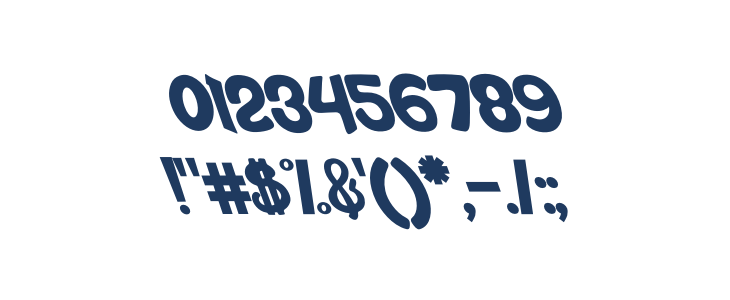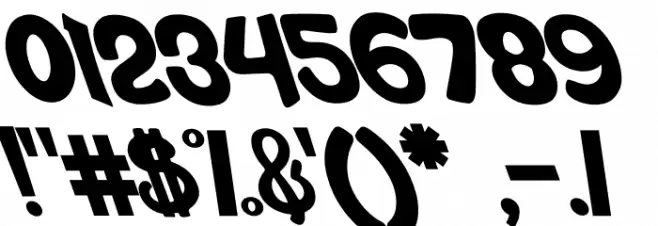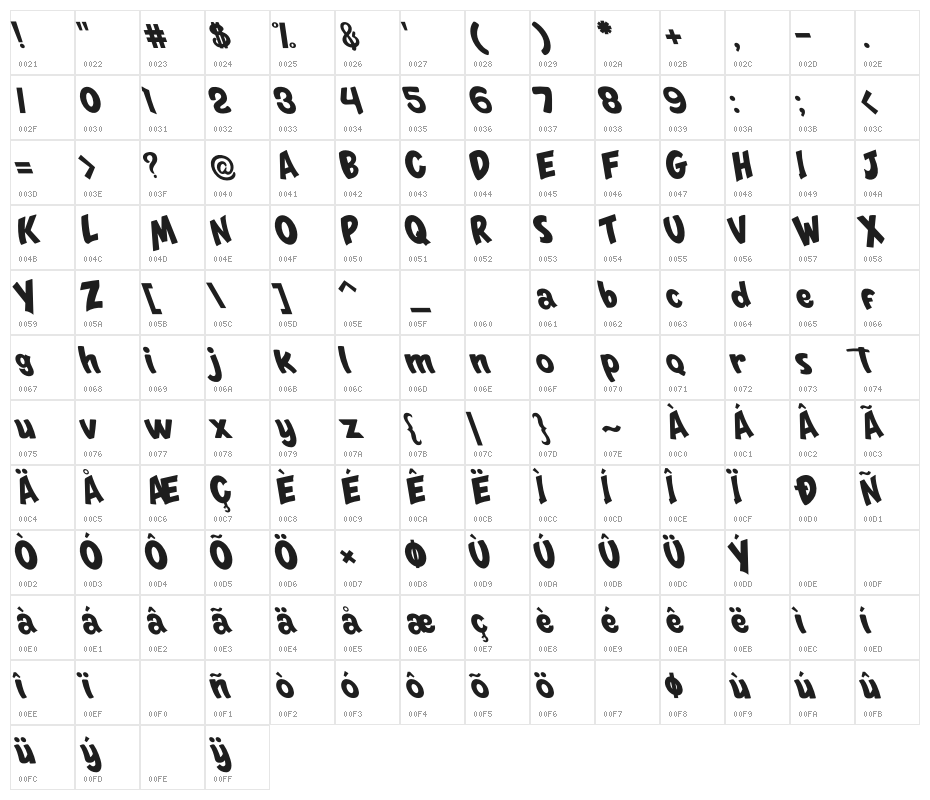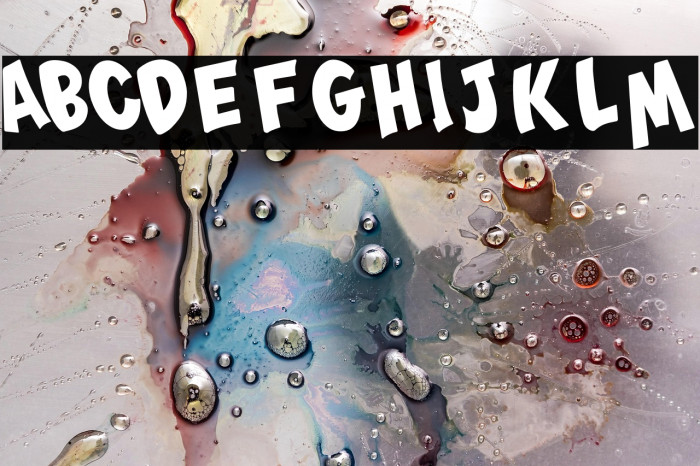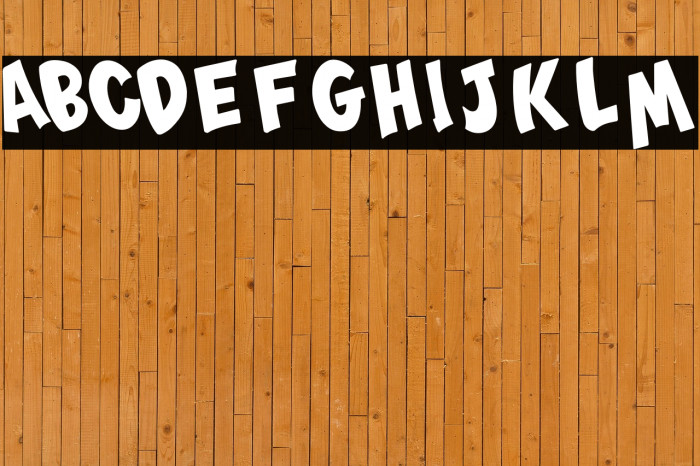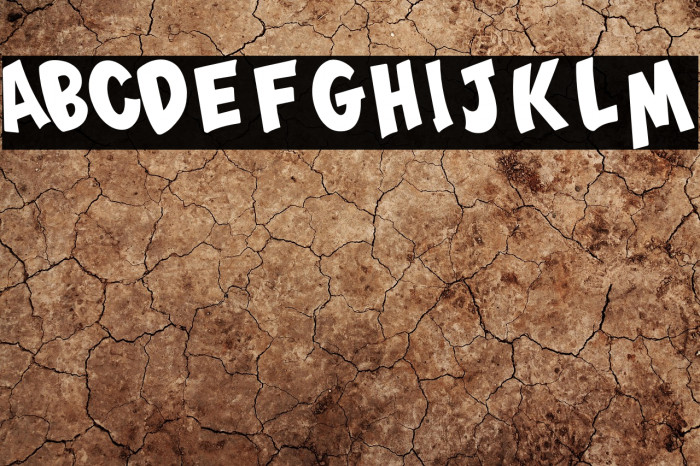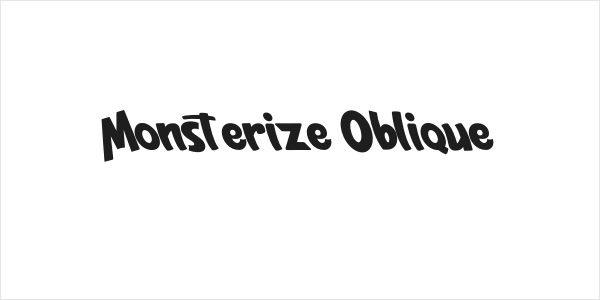
Monsterize Oblique Font
Monsterize Oblique Description
This font features a bold and playful style with exaggerated, uneven strokes that give it a lively and energetic appearance. The letters are slightly slanted, adding a sense of movement and dynamism. The uppercase and lowercase characters are distinct, with the uppercase letters being more angular and the lowercase more rounded. The numbers and special characters maintain the same whimsical style, making the font suitable for creative and informal designs. The overall look is bold and eye-catching, perfect for capturing attention.
A bold, playful font with slanted, dynamic characters from Uncategorized fonts.
- Proposed Projects: Ideal for children's book covers, playful branding, event posters, and creative social media graphics.
- Overall Style: Playful, Energetic, Creative
- Use Case: Headlines, Posters, Branding